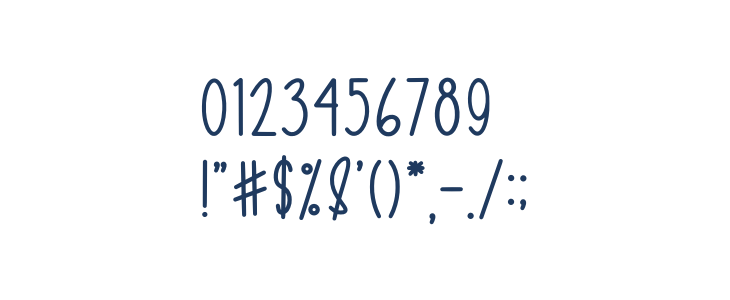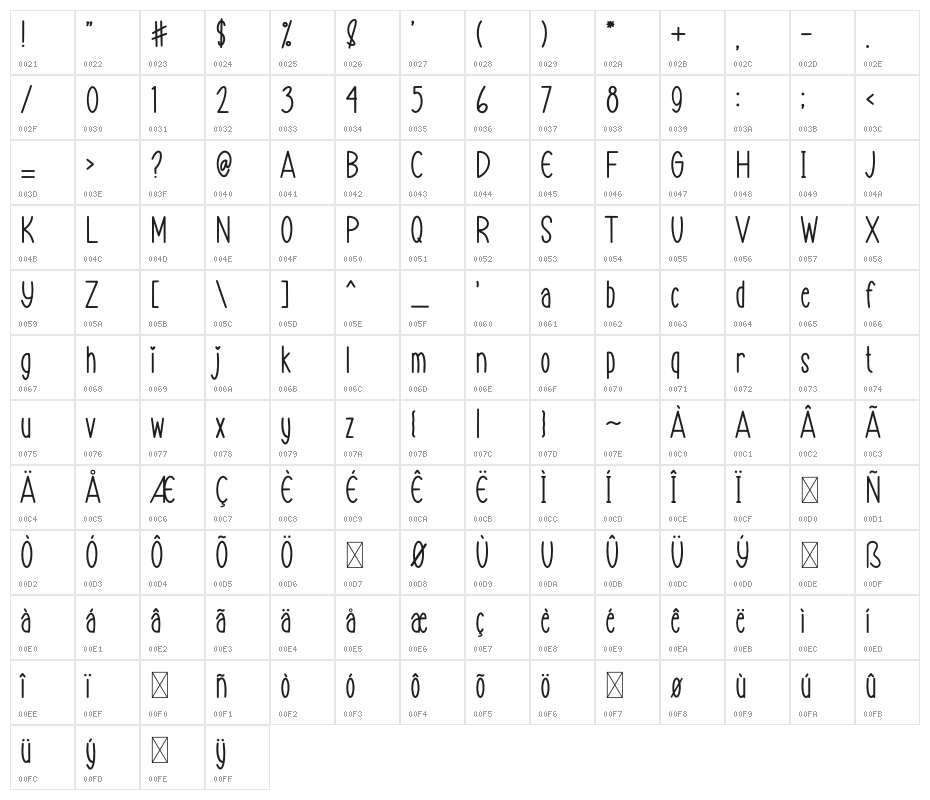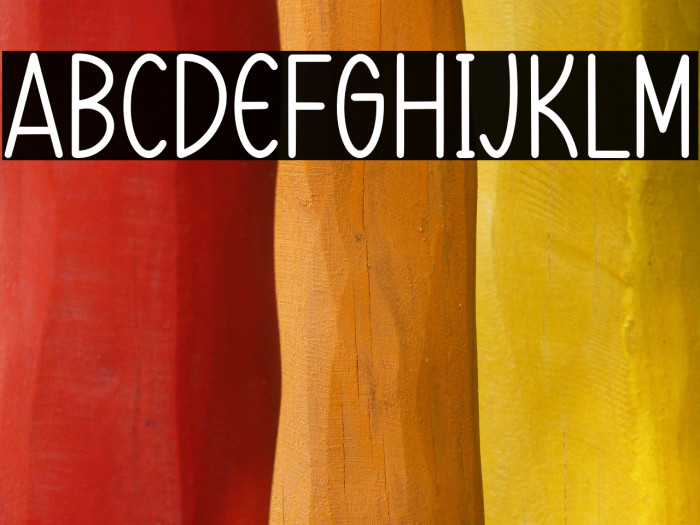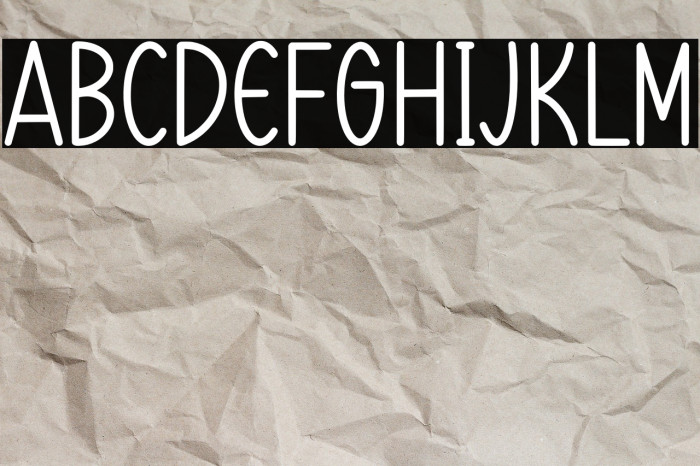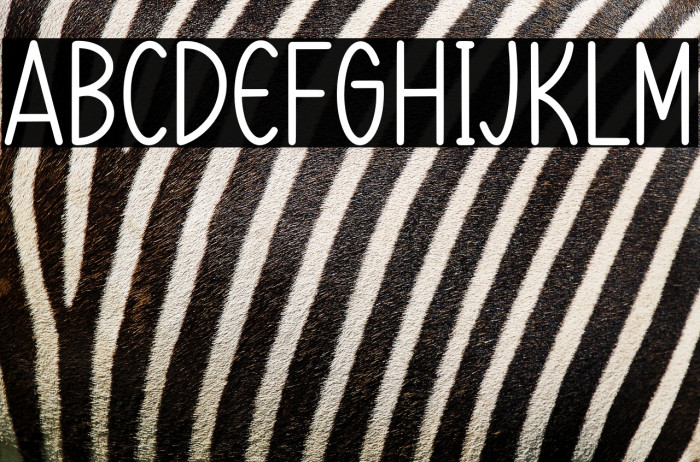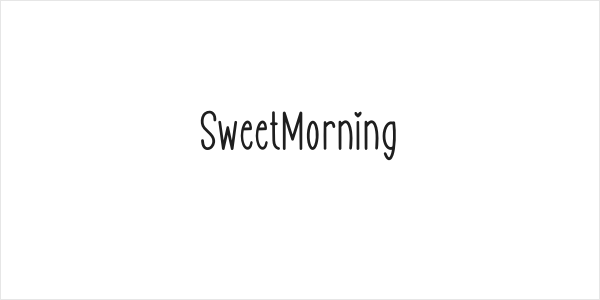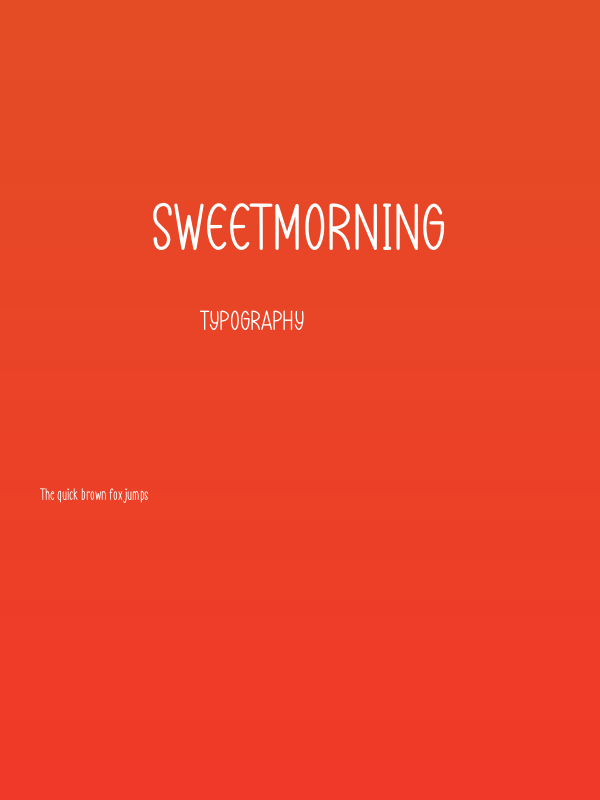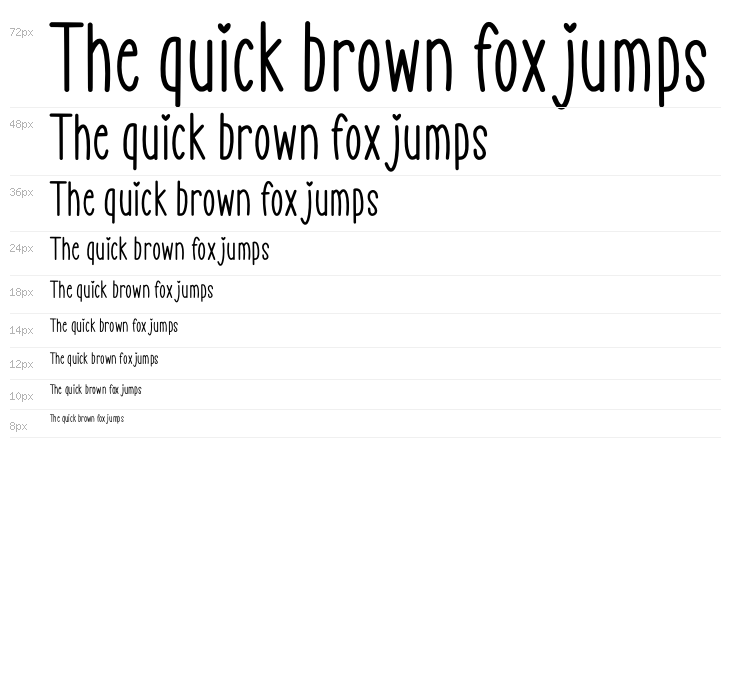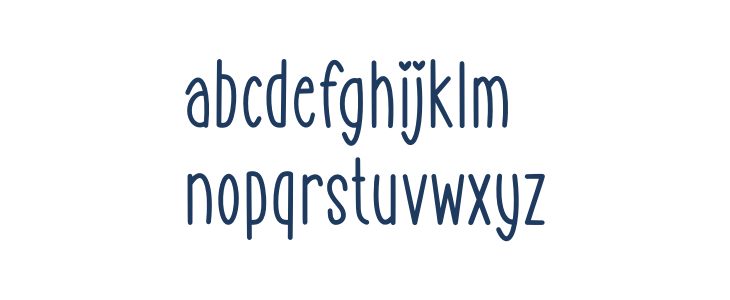
SweetMorning Font
SweetMorning Description
This playful and whimsical font features tall, narrow characters with a hand-drawn aesthetic. The letters are slightly irregular, adding a charming and informal touch. The strokes are consistent in width, giving it a clean and modern look while maintaining a friendly and approachable feel. The font includes a full set of uppercase and lowercase letters, numbers, and a variety of special characters, making it versatile for various design needs. Its unique style is perfect for projects that require a personal and creative touch.
| Proposed Projects | Ideal for children's books, greeting cards, playful branding, and creative posters. |